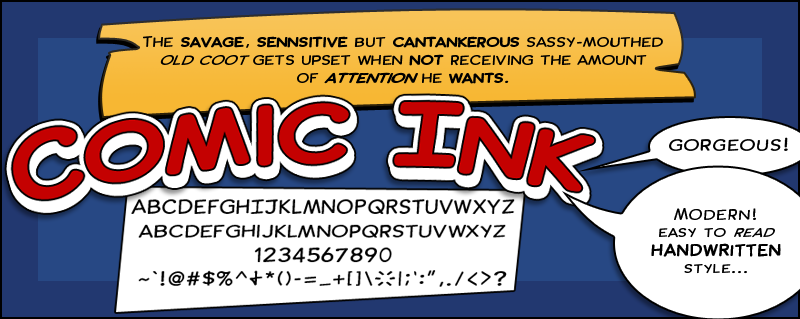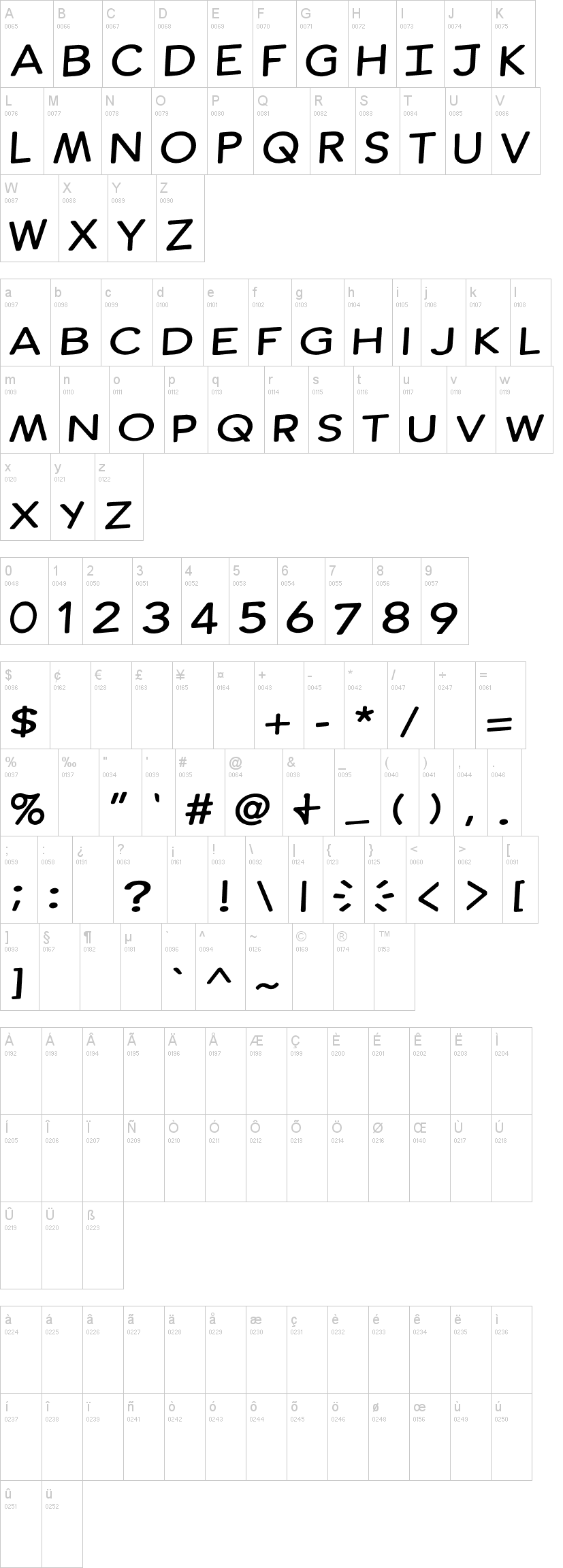
Note of the authorI've always loved the look and feel of the handwritten inkings from comics. So, I wanted to create my own inspired version. Hoping to bring a modern style, easy to read with hand lettered charm, Comic Ink was born.